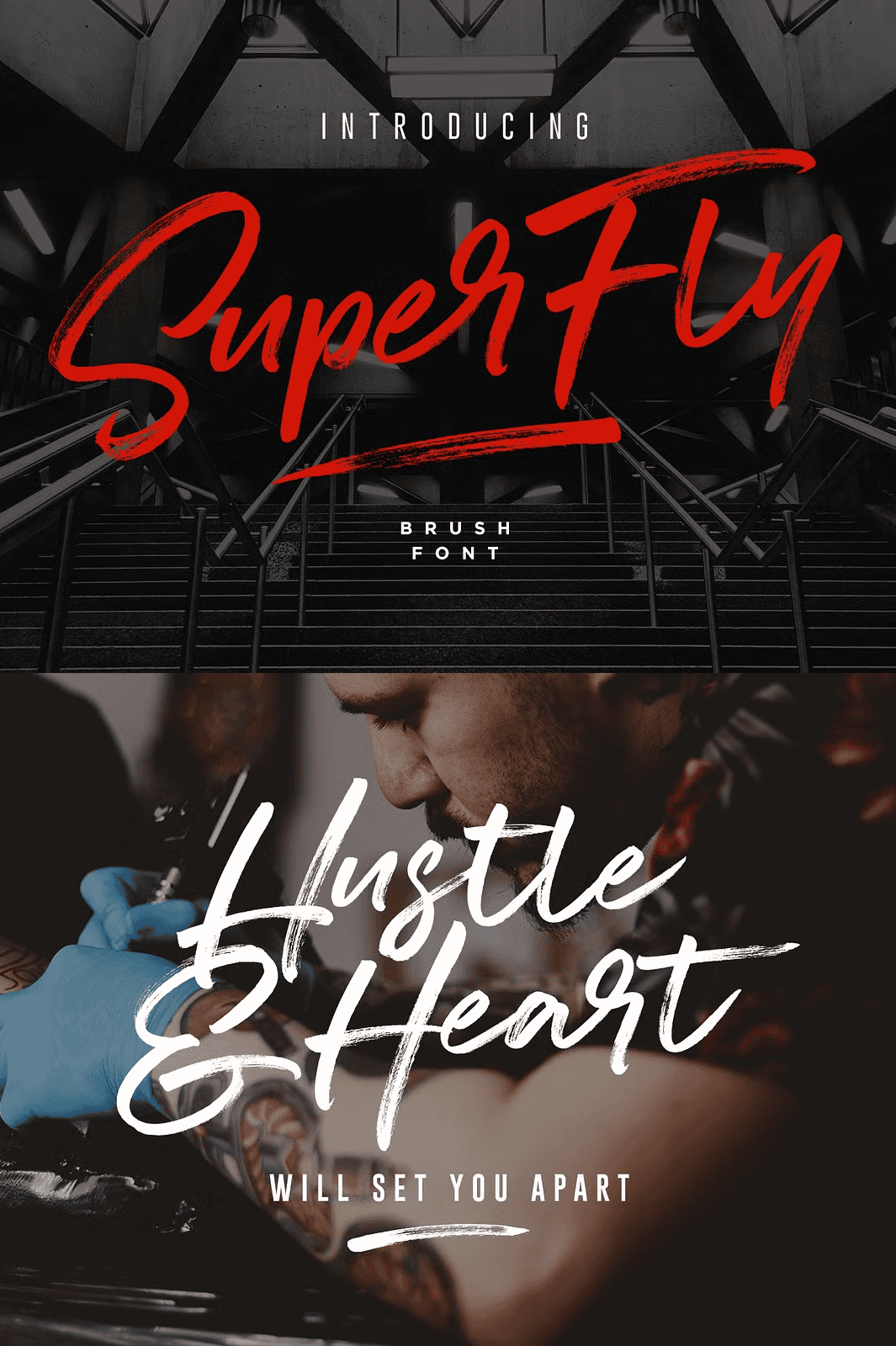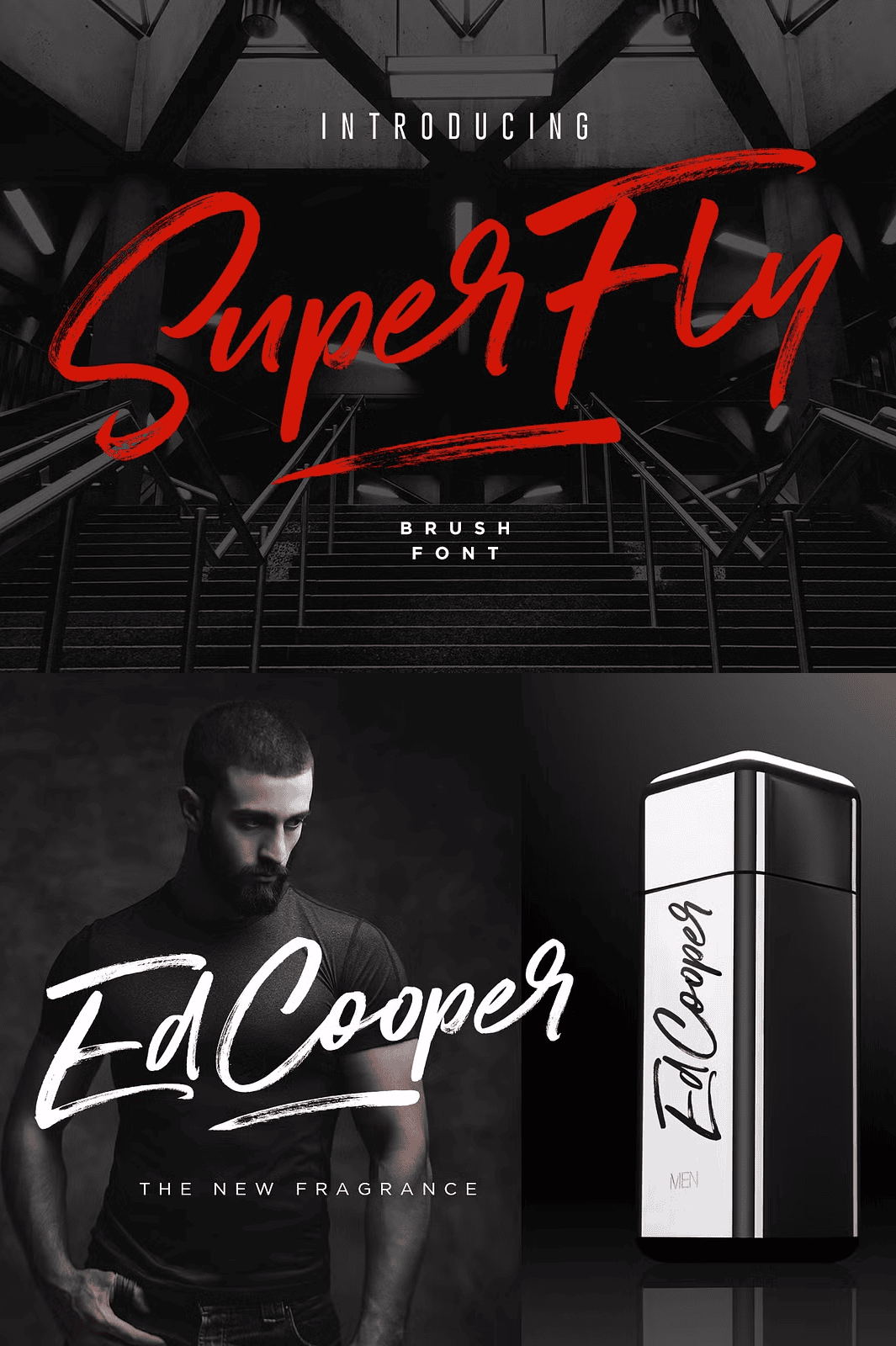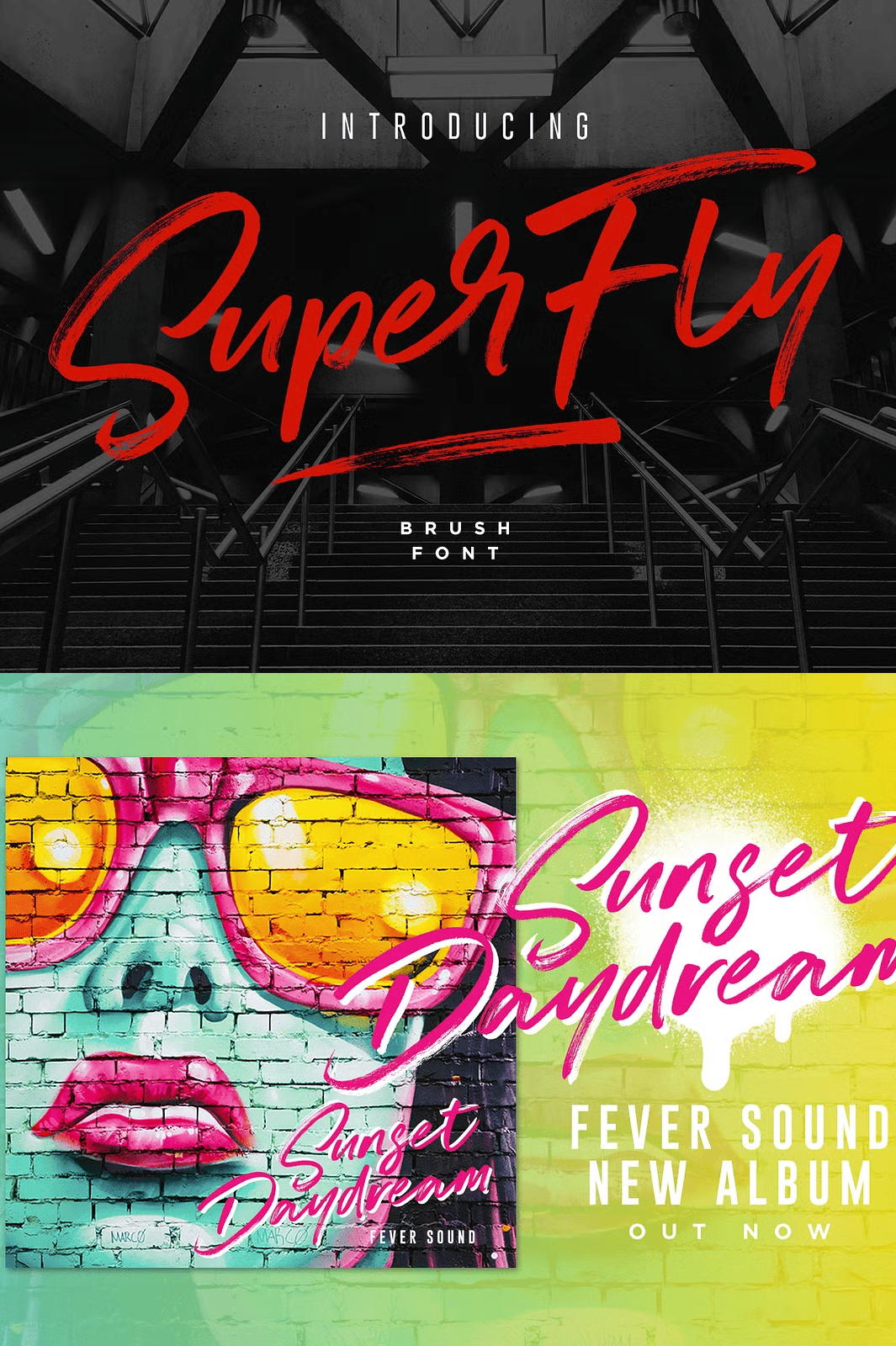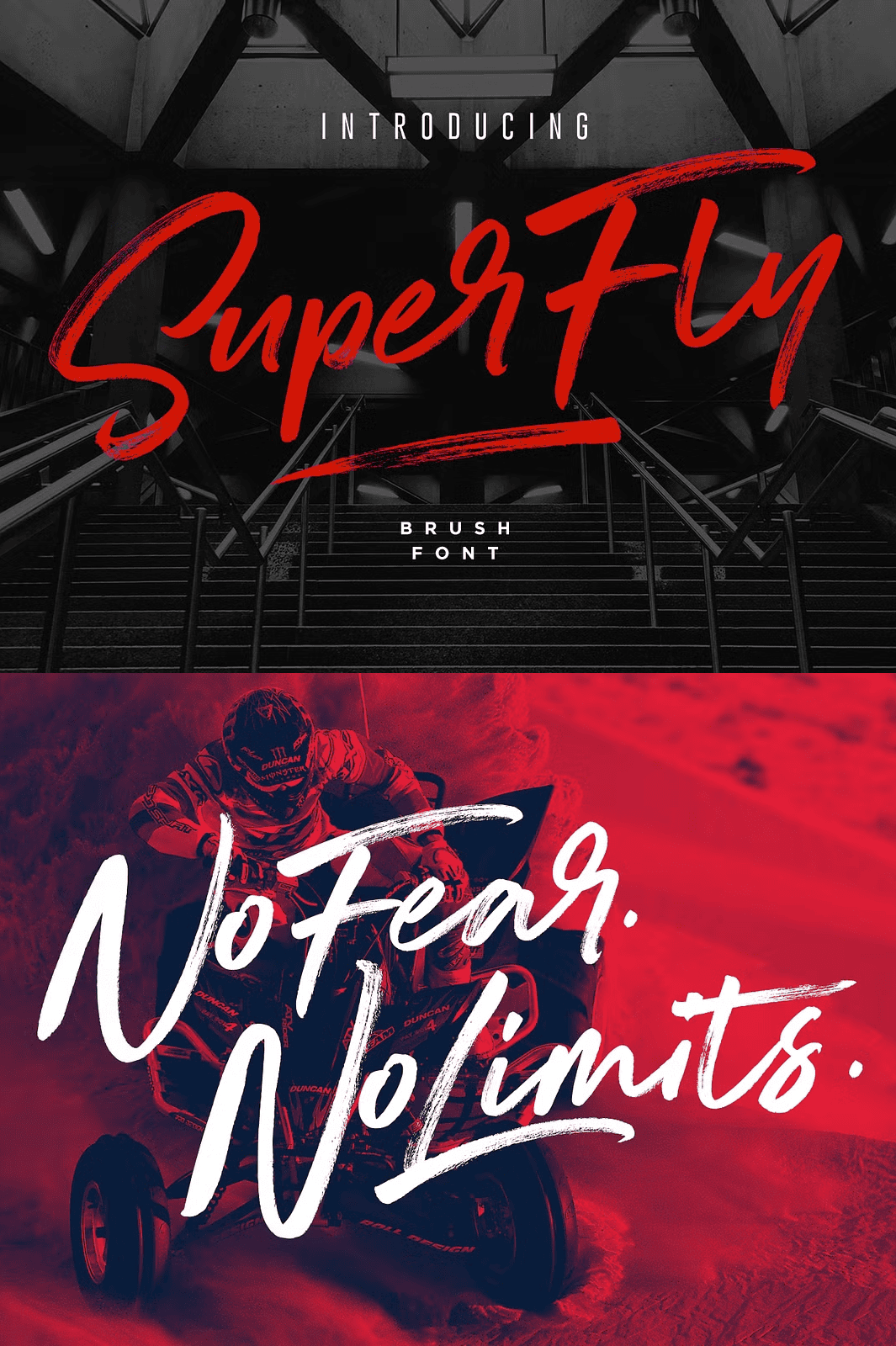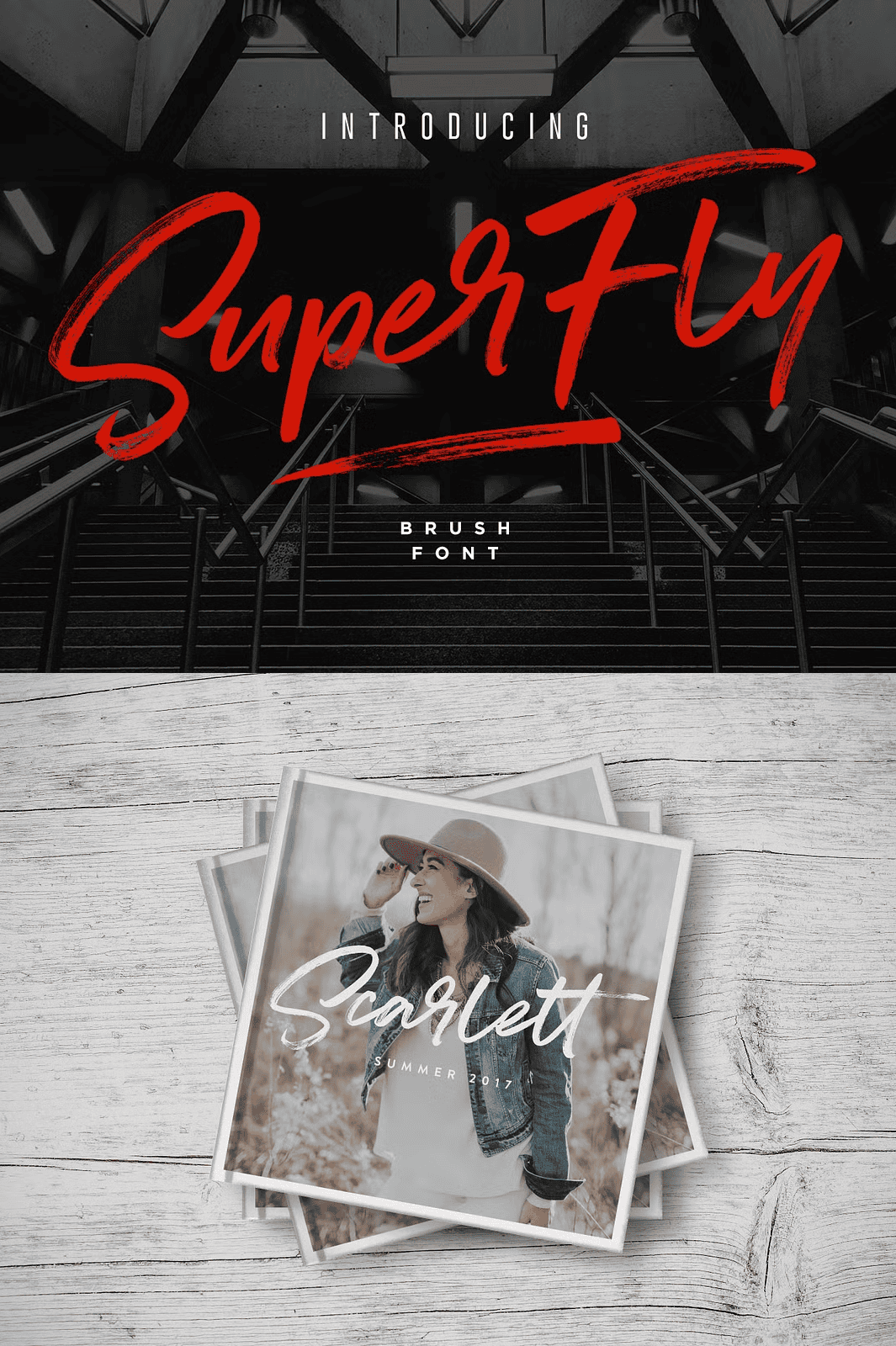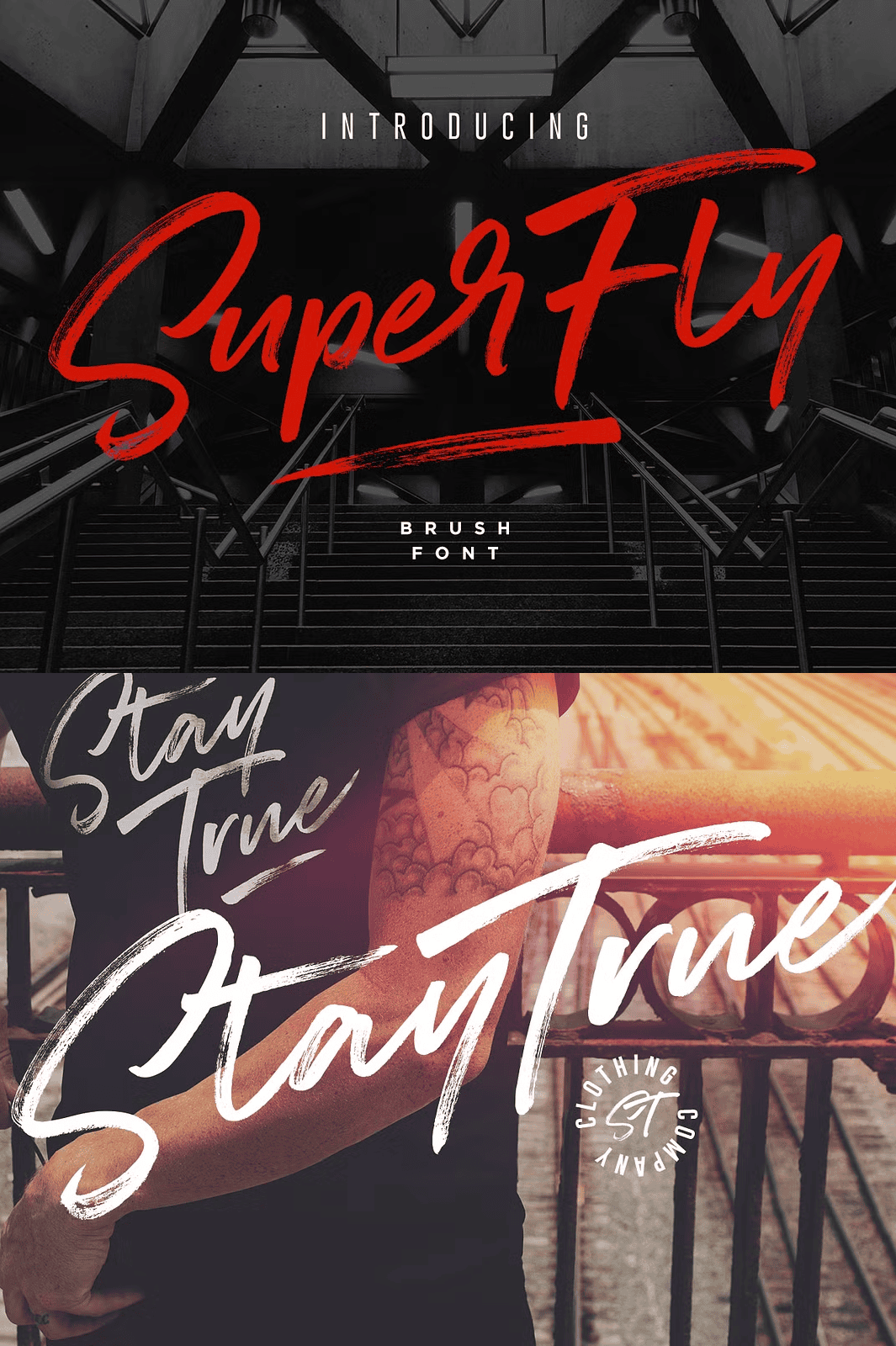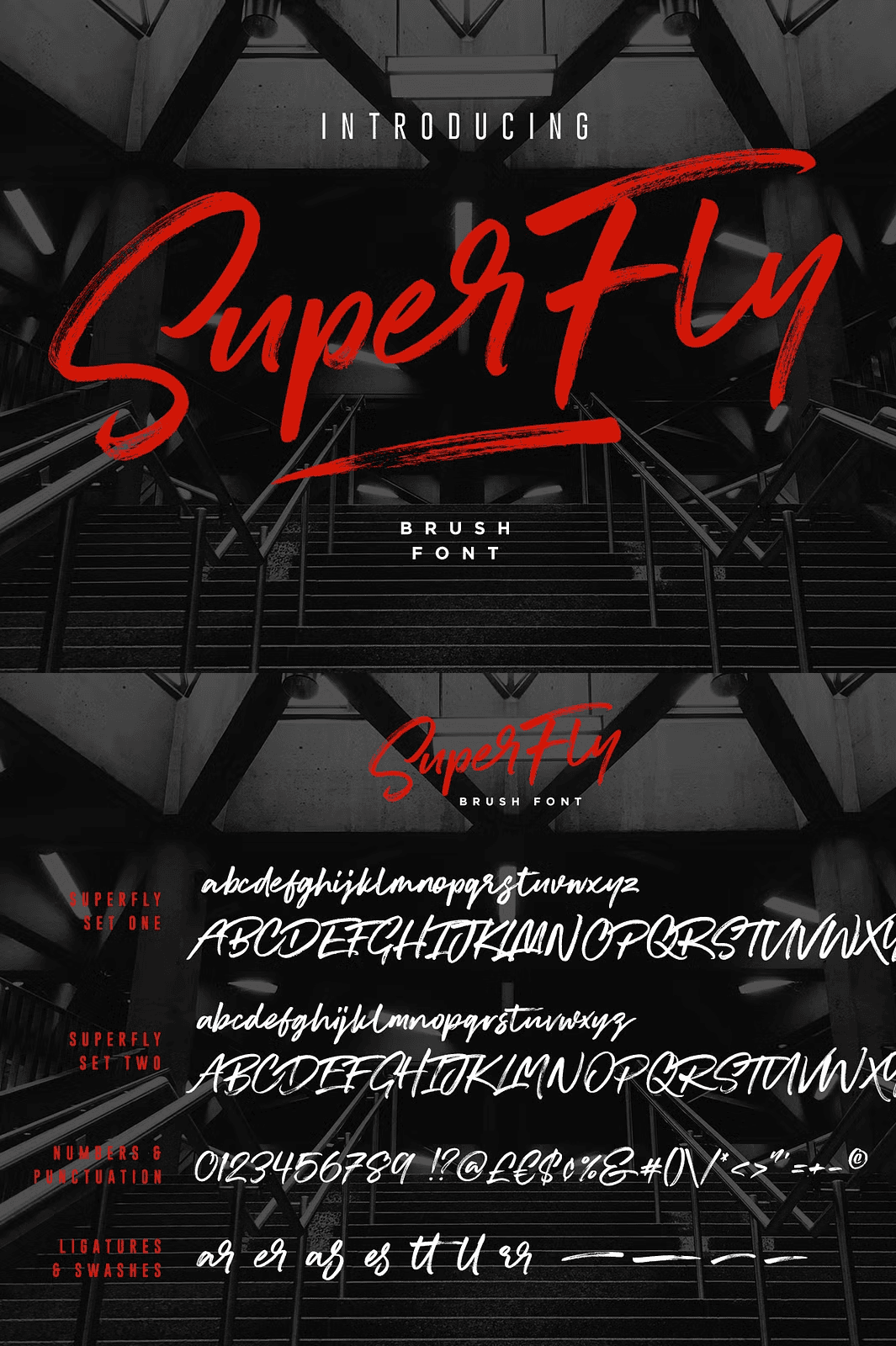
Step Into the Flow — Where Style Meets Substance
Ready to inject your designs with fearless energy and artistic flair? Meet **SuperFly** a dynamic, handcrafted brush font engineered for creatives who demand more than just letters. With its loose, expressive strokes and modern urban rhythm, SuperFly delivers a visual punch that commands attention across digital and print media.
This isn’t just a script font it’s a creative catalyst. Whether you’re building a fresh brand identity, designing product packaging with personality, or crafting social media content that stands out, SuperFly turns every word into a statement.
Discover Two Distinct Versions for Unlimited Creative Freedom
SuperFly isn’t just one font it’s a duo designed to keep your work fresh and original. Here’s what’s included:
– **SuperFly One** – The original flow. A rich set of uppercase and lowercase characters, numerals, and punctuation, expertly crafted to deliver smooth, natural hand-lettering with authentic brush dynamics.
– **SuperFly Two** – A reimagined version with entirely new character shapes and layouts. Use this alternate to break visual repetition, introduce variation, or build unique typographic compositions that feel custom-made.
Switch between them anytime to achieve diverse visual outcomes, ensuring no two designs feel alike all with a single download.
Effortless Customization with Smart OpenType Features
– Support for **multilingual typography** ensures your work reaches global audiences: English, French, Italian, Spanish, Portuguese, German, Swedish, Norwegian, Danish, Dutch, Turkish, Polish, Finnish, Indonesian, Filipino, and Malay are fully covered.
This means your message isn’t just beautiful — it’s inclusive.
Elevate Every Project with a Font Built for Impact
SuperFly thrives where creativity needs to shine:
– ✅ **Logo design**: Create unique, handcrafted identities with unmatched character.
– ✅ **Product packaging & labeling**: Add charm and edge to beauty, apparel, or artisan goods.
– ✅ **Social media graphics**: Stand out with bold, expressive quotes and captions.
– ✅ **Branding & marketing collaterals**: Build consistency with a distinct visual voice.
– ✅ **Handwritten-style quotes & stationery**: Bring warmth and emotion to digital or printed content.
Each application becomes an extension of your design philosophy — bold, modern, and authentically human.
Why limit your imagination? SuperFly removes the barriers between idea and execution. With two unique versions, multilingual support, and intuitive styling, it’s the most versatile script font you’ll ever use.
*No Limits. Just Creativity.*